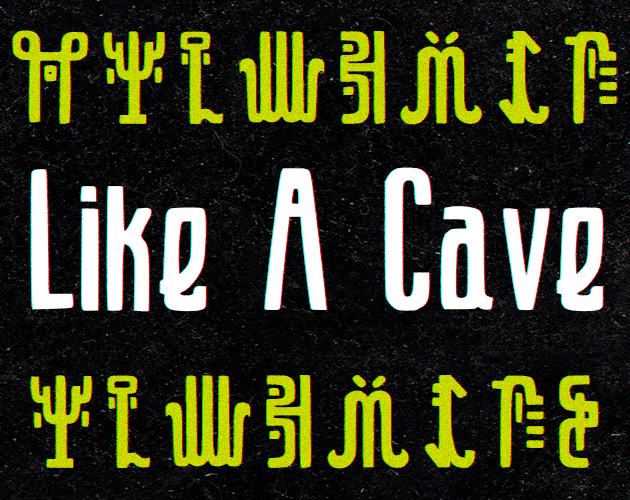
Like a Cave - Typeface
----------------------------------Like A Cave is a comic book inspired, unique hand drawn font that was created as the basic dialogue font for Brainwash Gang's games. Its name is a play of words between "Grotto" and "Laika" (two of the studio's game's names that use the font profusely). ---------------------------------- What's in it? · Language support for the most likely to be translated European languages and Russian.· 20 special dingbats based in Grotto's universe lore.· Licensed under the SIL Open Font License (which means it's free to use, but donations to the studio are appreciated if you enjoy the typeface!) What's missing? The font has bad kerning that I don't know how to fix! They won't let me upload it to Dafont until I fix it. We also accept "teaching Ivan how to fix a font's kerning in an easy way" through twitter DM's as a type of donation.We also haven't encountered problems with translations yet, but please reach out to tell us if you do!///// 19/04/2023 Update: Added support for more languages (mainly Ukranian), bad kerning is still rampant.